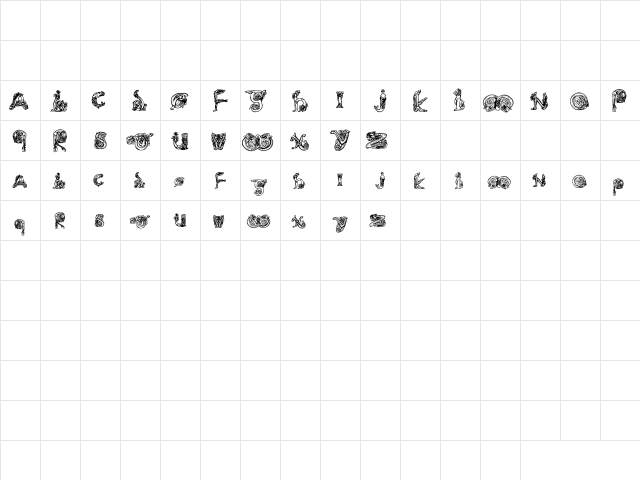
Animal Caps Regular
| Foundry | MouserFonts |
| Designer | Converted by Jerry Landers |
Design Context for Animal Caps Typeface
Animal Caps is a composed and adaptable typeface that performs quietly and consistently across a wide range of design contexts.